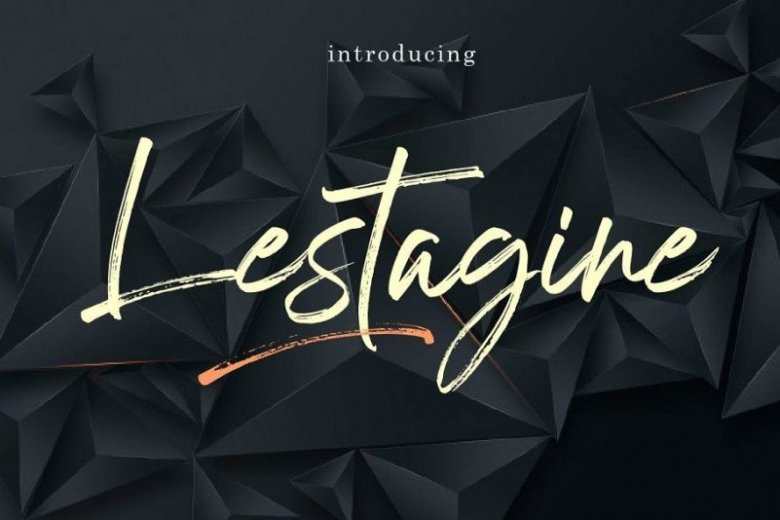
Lestagine Brush Font
Lestagine Brush Font is a lovely and casual handwritten font. It is the best choice for creating eye catching logos, branding and quotes. Made from font designer named AMINMARIO. This font is a beautiful brush script created with brush pen to give a great contrast between thick and thin curves. Drawn, Scanned & Vectorized from paper to screen.
This is suitable for quotes, invitations, stationery, wedding design, logos, watermarks on photography, signatures, branding, advertisement, album covers, business cards, clothing, magazines, posters, and more!